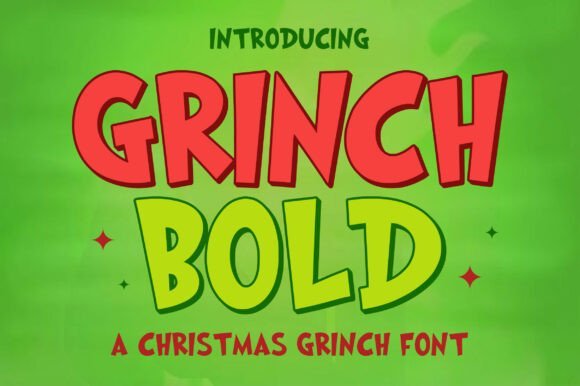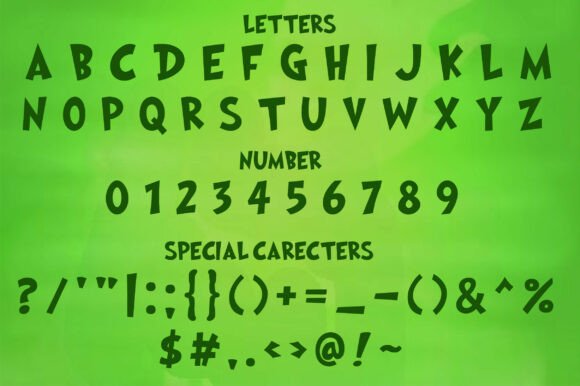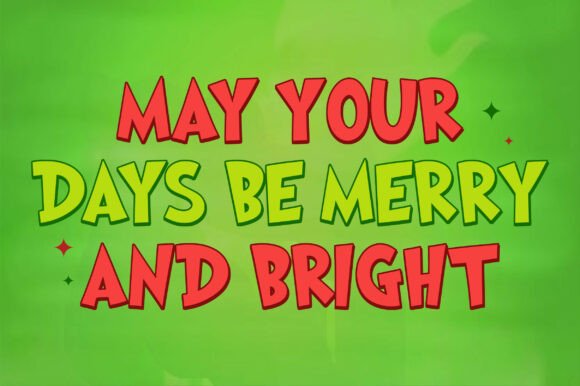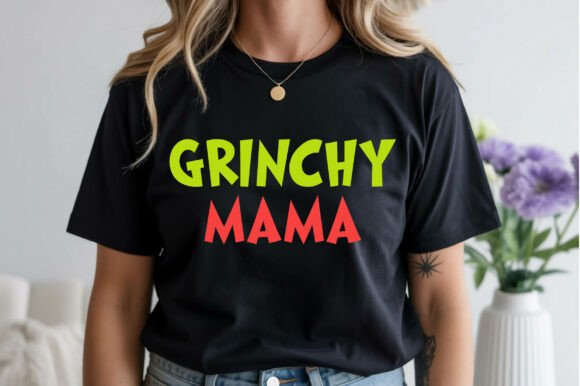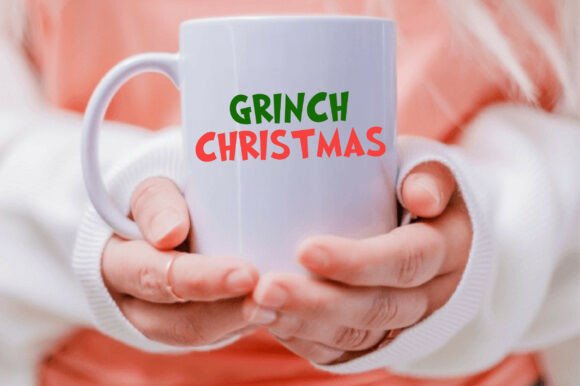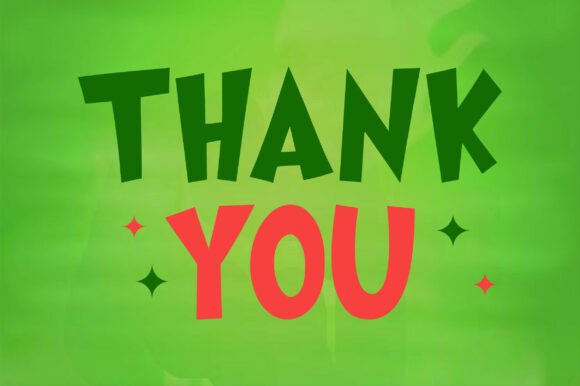
Deck the Halls with a Dash of Grinchy Charm
It’s that time of the year when creativity runs wild and your designs need a spark of holiday cheer. You’re browsing through font collections, searching for the perfect fit to capture the essence of the season. Suddenly, you stumble upon Grinch Bold Font, and your creative wheels start turning.
Grinch Bold Font is a playful display font that brings a touch of Grinch-inspired whimsy to your designs. Its bold strokes, quirky curves, and uneven edges evoke a lively, handwritten feel that instantly adds character to any project. Whether you’re crafting Christmas cards, designing festive posters, or creating fun children’s crafts, Grinch Bold Font is the perfect companion to add a dash of mischief and charm to your artwork.
Grinch Bold Font Key Features
- Font Family: Grinch Bold Font
- Unique Characteristics: Unique, bold, and distinctive letterforms that evoke the Grinch character, ideal for headlines, titles, and emphasis
Grinch Bold Font Review
As a designer, I was excited to try out the Grinch Bold Font. At first glance, I loved the edgy and modern aesthetic it brings to any design project. ✨ The font’s unique style and quirky personality instantly caught my attention, and I could see it working well in a variety of contexts, from digital signage to editorial content.
- The Grinch Bold Font is highly customizable, allowing designers to easily adjust the weight, spacing, and other attributes to suit their specific needs.
- Its modern feel makes it an excellent choice for trendy and forward-thinking brands.
- The font is highly legible, even at small font sizes.
However, there are a few limitations to consider. ⚠️ The Grinch Bold Font may not be the best choice for projects that require a more traditional or conservative aesthetic. Additionally, some users have reported issues with compatibility across different devices and platforms.
Overall, I would give the Grinch Bold Font 4 out of 5 stars. While it’s not perfect, its unique style and high level of customization make it a great addition to any designer’s toolkit. With a little experimentation and patience, I think it has the potential to become a go-to font for many designers.
Use Grinch Bold Font for:
- Emphasizing important information or headings.
- Creating a playful or whimsical design.
- Adding a touch of grinchy humor to your content.
For the best results, pair Grinch Bold Font with a bold and playful color scheme to create a cohesive design.
Alternatives to Grinch Bold Font for Designers
Montserrat Bold
Montserrat Bold is a sans-serif font designed for digital use, making it perfect for headlines, titles, and any other text that requires a strong presence. It is similar to Grinch Bold Font in its bold and modern aesthetic, but has a more geometric feel. Use Montserrat Bold when you want a clean and sophisticated look for your design.
Playfair Display Bold
Playfair Display Bold is an elegant serif font that adds a touch of luxury to any design. It is more ornate than Grinch Bold Font, making it perfect for titles, headings, and other text that requires a sense of sophistication. Use Playfair Display Bold when you want to add a touch of elegance to your design.
Source Sans Pro Bold
Source Sans Pro Bold is a modern sans-serif font that is highly legible and versatile. It is similar to Grinch Bold Font in its bold and modern aesthetic, but has a more minimalist feel. Use Source Sans Pro Bold when you want a clean and professional look for your design.
Akzidenz-Grotesk Bold
Akzidenz-Grotesk Bold is a classic sans-serif font that is highly legible and versatile. It is similar to Grinch Bold Font in its bold and modern aesthetic, but has a more traditional feel. Use Akzidenz-Grotesk Bold when you want a timeless and professional look for your design.